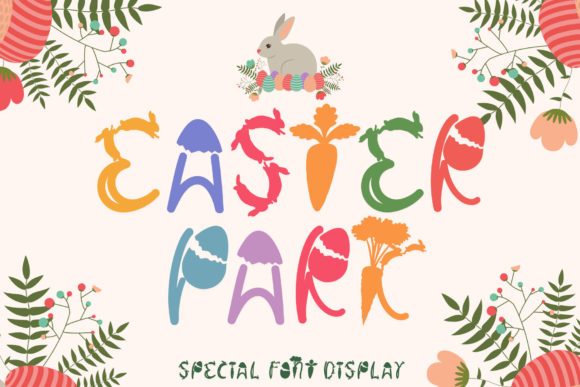
Journey into the realm of whimsical charm and lighthearted delight with Easter Park Font, a captivating display font crafted by yogaletter6. Let your imagination run wild as you explore this playful and vivacious font, a true masterpiece designed to spark smiles and laughter.
Easter Park Font is an enchanting display font that exudes joy and exuberance. Its playful curves, whimsical strokes, and cheerful demeanor make it the perfect choice for adding a touch of fun and lightheartedness to any project. Whether you're creating eye-catching logos, delightful invitations, or playful social media graphics, Easter Park Font will bring your words to life with its infectious energy.
This remarkable font features a diverse range of characters, including uppercase letters, lowercase letters, numerals, and an assortment of punctuation marks. Additionally, Easter Park Font is PUA encoded, granting you effortless access to a treasure trove of glyphs and swashes. Unleash your creativity and let your imagination soar as you incorporate these enchanting elements into your designs.
With its ability to effortlessly evoke a sense of happiness and nostalgia, Easter Park Font is the perfect choice for a wide array of projects. Create cheerful and inviting posters that will brighten any room, design vibrant and captivating t-shirts that will turn heads wherever you go, or craft enchanting invitations that will transport your guests to a world of whimsy and delight.
So, embark on an adventure of imagination and creativity with Easter Park Font. Let its playful spirit ignite your designs and spread joy with every stroke. Dive into the realm of endless possibilities and experience the magic of this extraordinary display font.